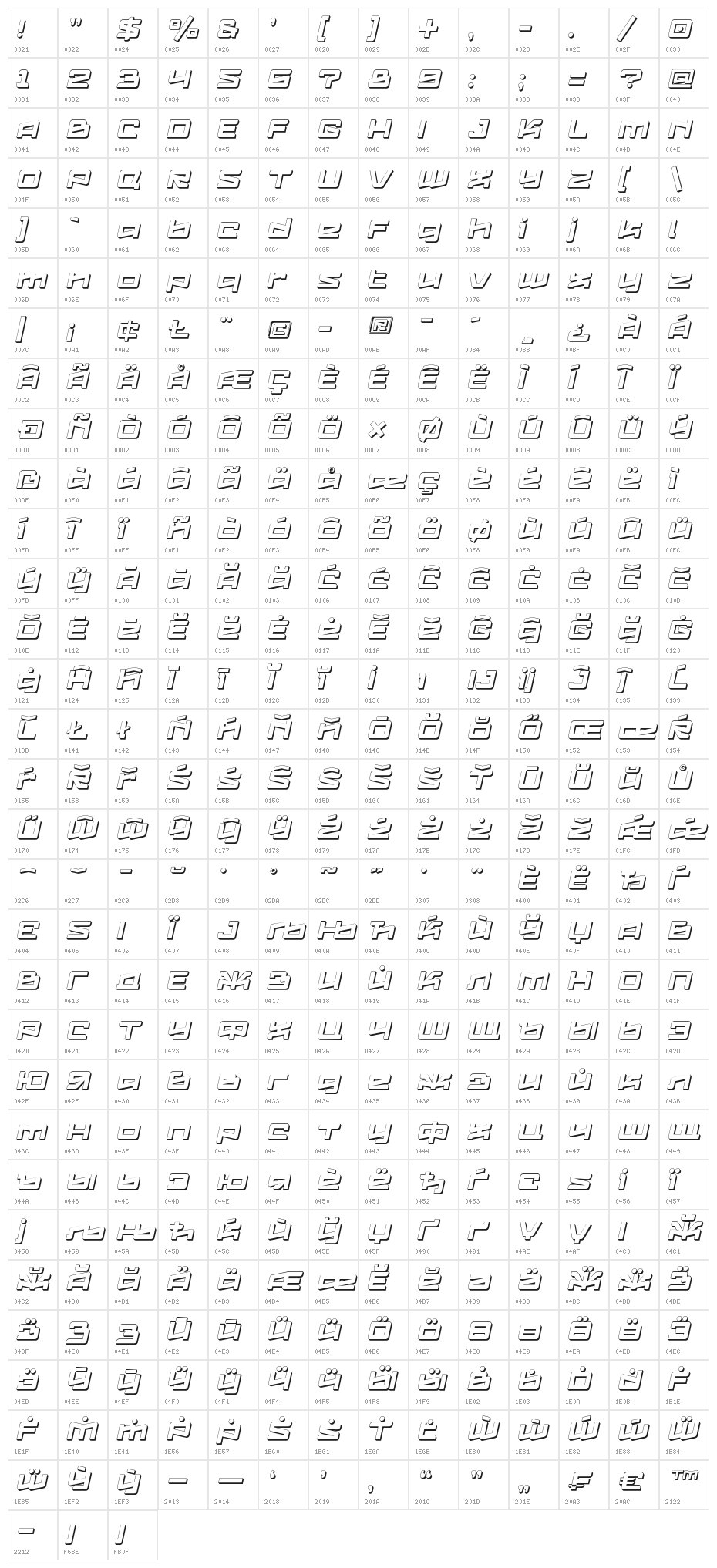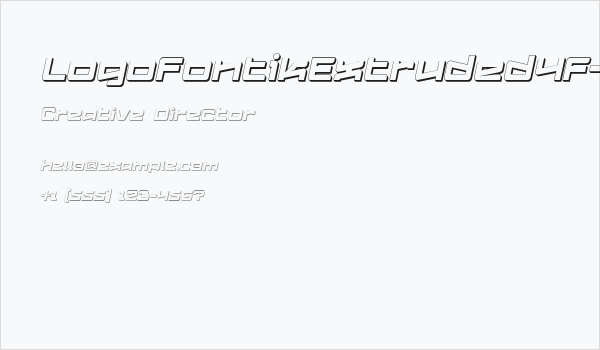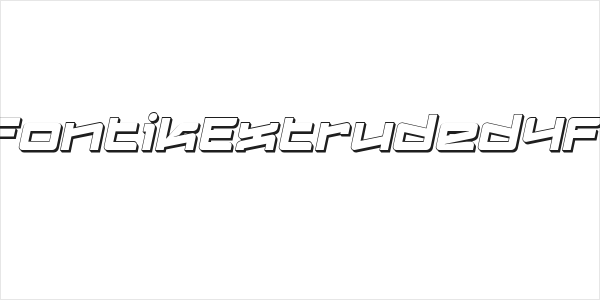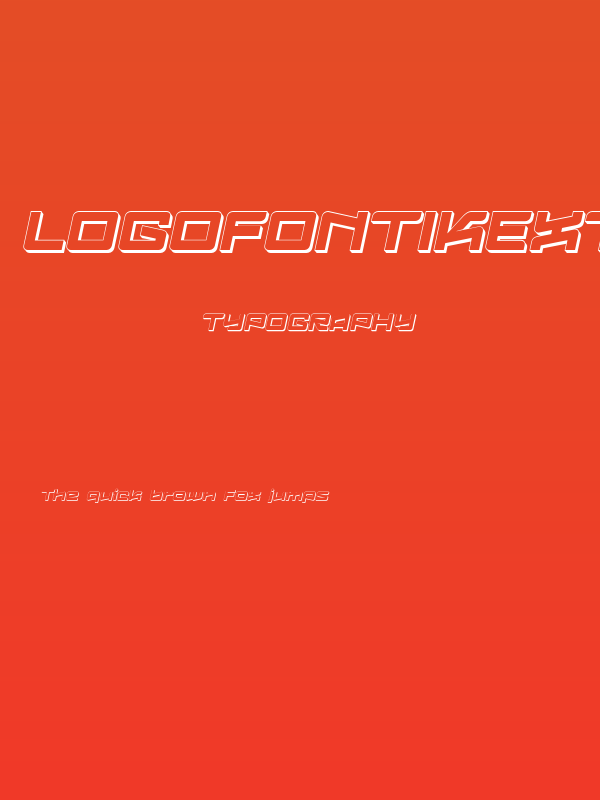
LogofontikExtruded4F-Italic Font
LogofontikExtruded4F-Italic Description
This font features a bold, extruded style with a three-dimensional effect, giving it a dynamic and futuristic appearance. The characters are outlined, creating a sense of depth and movement. The italic slant adds to its energetic and modern feel, making it stand out in any design. The uppercase and lowercase letters maintain a consistent style, with geometric shapes and sharp angles. Numbers and special characters are designed to match the overall aesthetic, ensuring uniformity across all elements.
| Proposed Projects | Ideal for logos, posters, and branding materials that require a modern and eye-catching design. |